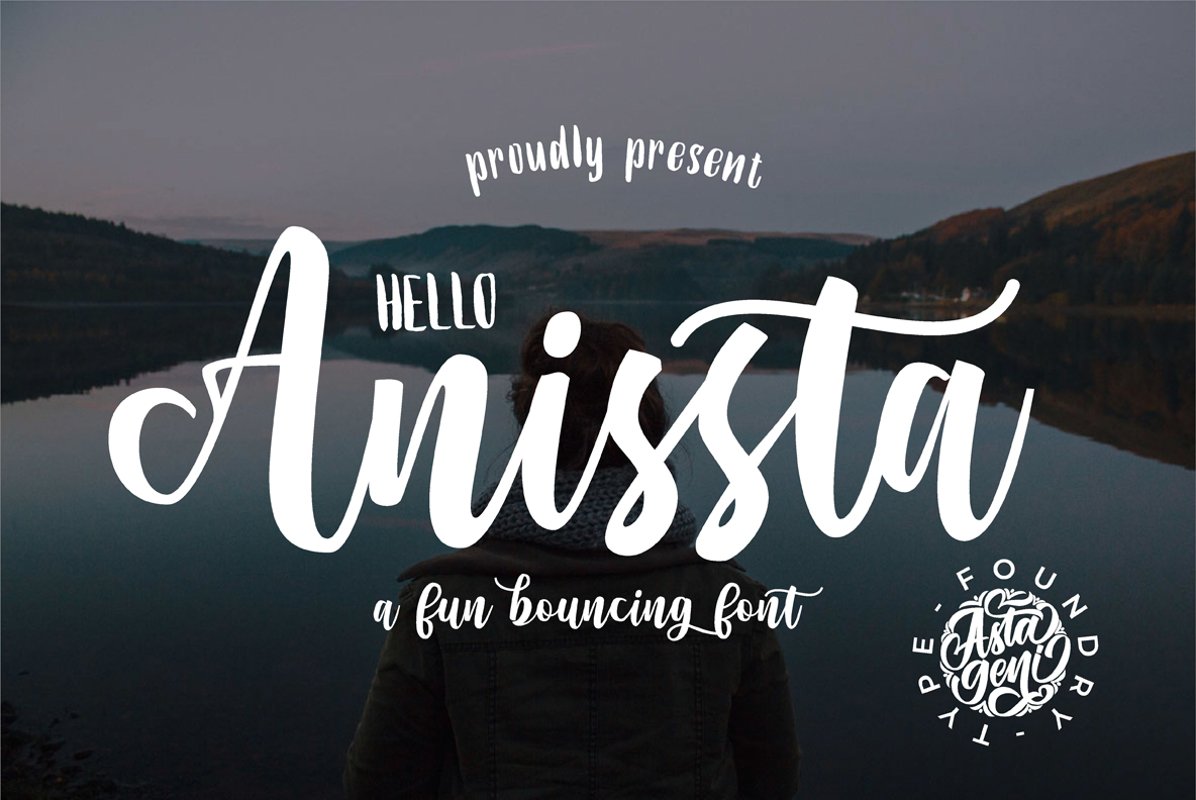
Created By Astageni
Anissta Script
I will introduce my newest product "Hello Anissta"
This font is very modern, and is perfect for your design ...
This font is suitable for business cards, logos, covers, comics, invitations, etc.